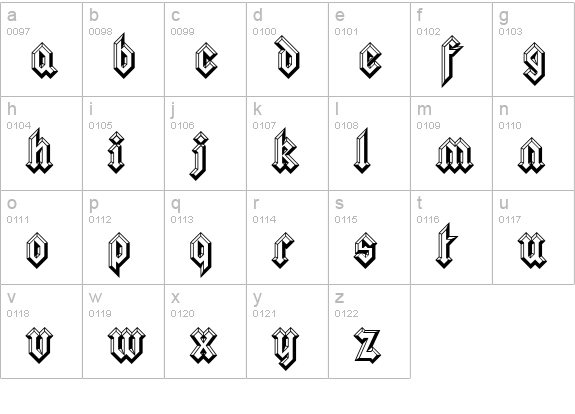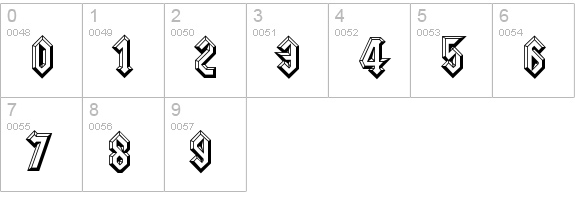
Squealer Embossed Font Details
Squealer Embossed font is a stunning display typeface that exudes a sense of power and sophistication. With its bold, embossed letterforms, this font is perfect for adding a touch of elegance to any design project. The intricate details of each character create a captivating visual impact, making it ideal for headlines, logos, and branding materials. This font offers a unique blend of vintage charm and contemporary style, making it versatile and adaptable to various design styles. Its strong presence and charismatic personality make it perfect for creating eye-catching posters, book covers, and advertising campaigns. One of the best things about Squealer Embossed font is that it is free to use. Yes, you read that right! This remarkable font is freely available to download at FontsMarket.com. Whether you are a professional designer or a creative hobbyist, you can access this font without any costs or restrictions. It's a fantastic opportunity to elevate your design projects without breaking the bank. So why wait? Unlock the potential of your designs with the captivating Squealer Embossed font. Download it for free today at FontsMarket.com and embark on a journey of creativity and visual excellence.